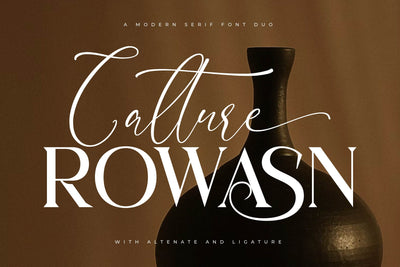
Calture Rowasn Font Duo
Proudly present Calture Rowasn Font Duo , created by Storytype,
A serif and script typeface that has own unique style & modern look.